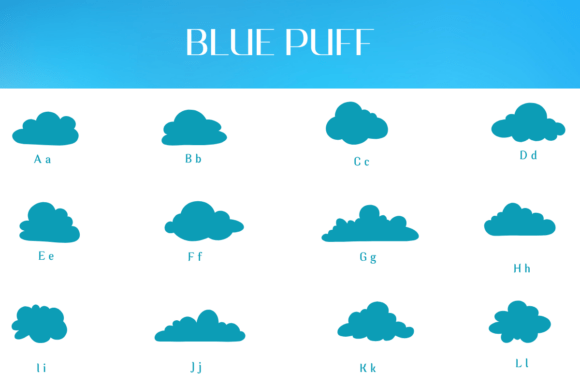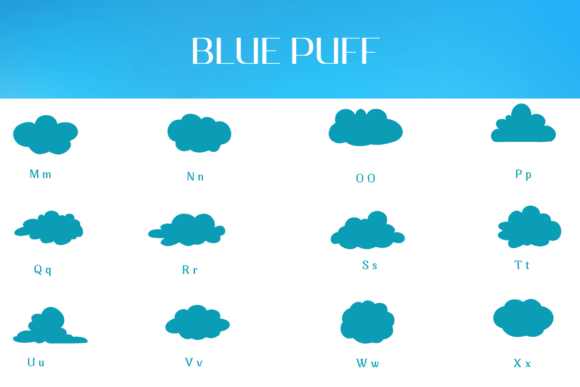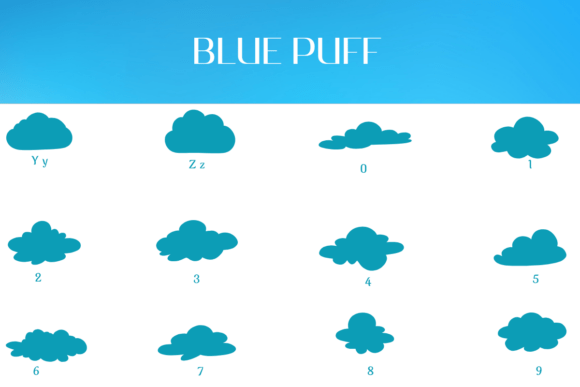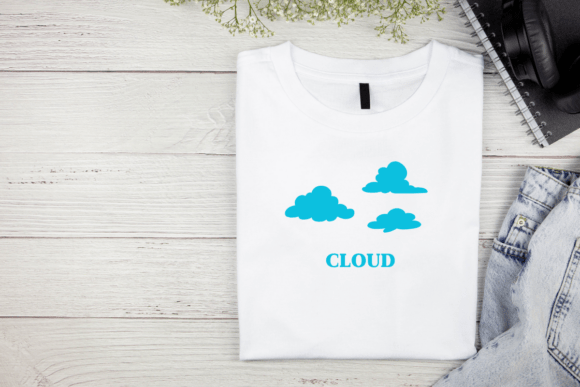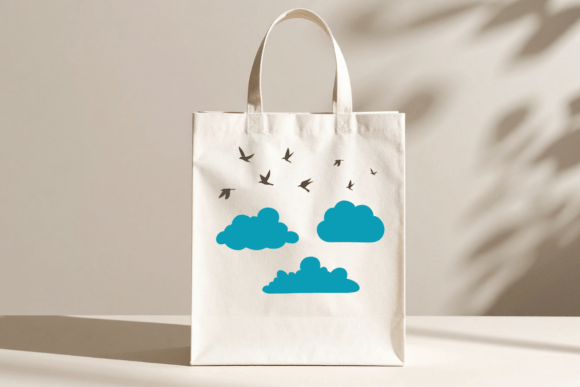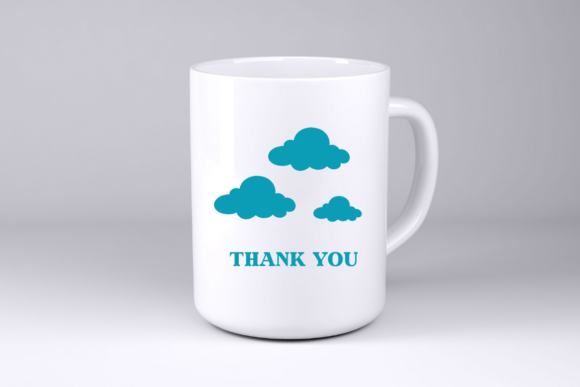
The Blue Puff Font: A Cute Dingbats Delight for Creative Projects
I’ll never forget the time I was working on a whimsical craft project, trying to find the perfect font to match my playful design. I scrolled through page after page of Google Fonts, but nothing seemed quite right. That was until I stumbled upon the Blue Puff font – a charming dingbats font that instantly brought my project to life! In this article, I’ll share my love for Blue Puff, its features, and how to make the most of it in your creative endeavors.
An Honest Review of Blue Puff
What I Love About Blue Puff ✨
- Its adorable, hand-drawn aesthetic ✅
- The wide range of glyphs and symbols to play with 🎨
- Perfect for crafty projects, DIY blogs, and social media graphics 📱
- Some users might find the font a tad too playful for professional projects ⚠️
- Limited availability of stylistic alternates compared to other dingbats fonts 📝
The Story Behind Blue Puff
While the actual origins of Blue Puff might be unclear, it’s easy to imagine a designer with a passion for crafting and whimsy creating this delightful font. Perhaps they wanted to bottle up the magic of childhood wonder and share it with the world through typography. Whatever the inspiration, Blue Puff has captured the hearts of designers and crafters everywhere.
| Font Name | Blue Puff Font |
| Author | Heartcraft Atelier |
| What type of projects is Blue Puff best suited for? | Crafty projects, DIY blogs, social media graphics, and other creative endeavors where a playful touch is desired. |
With Blue Puff in your design toolkit, get ready to add a dash of whimsy to your creative projects. Whether you’re a designer, crafter, or hobbyist, this charming dingbats font is sure to delight!